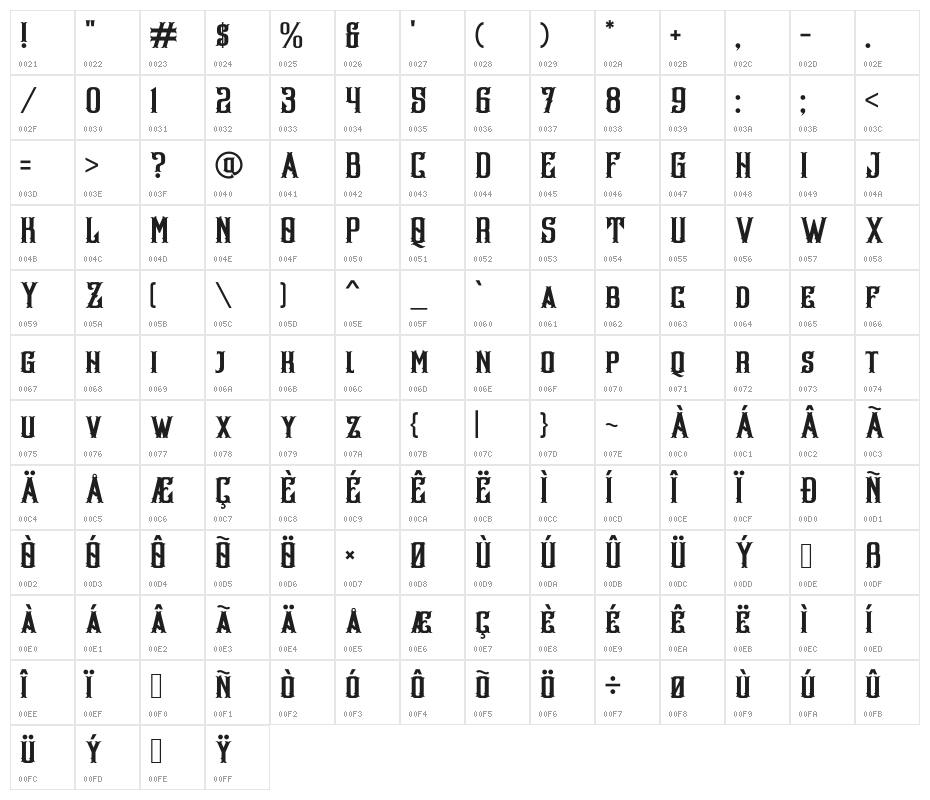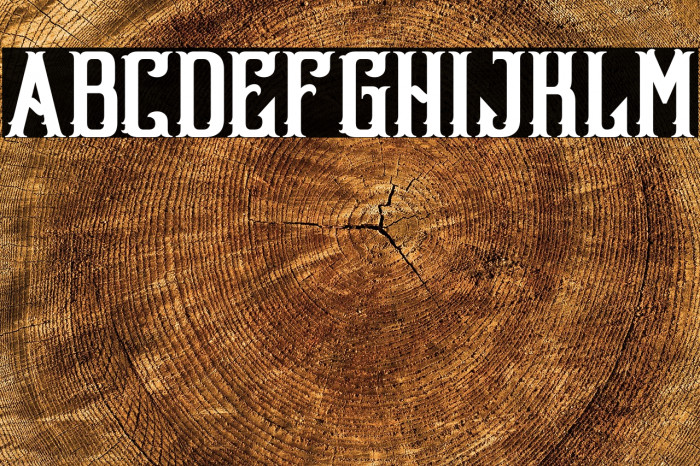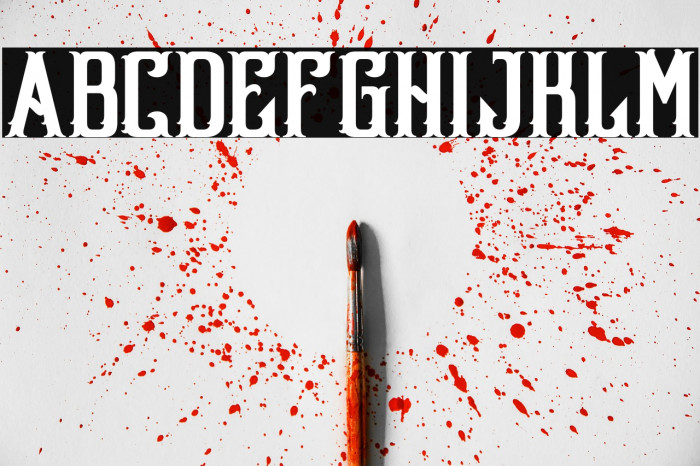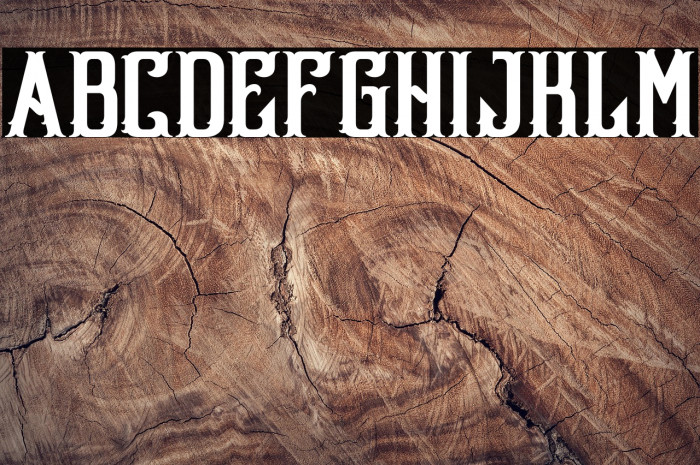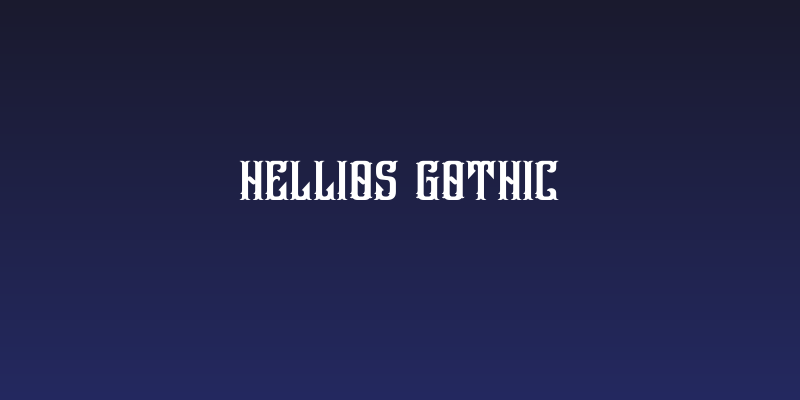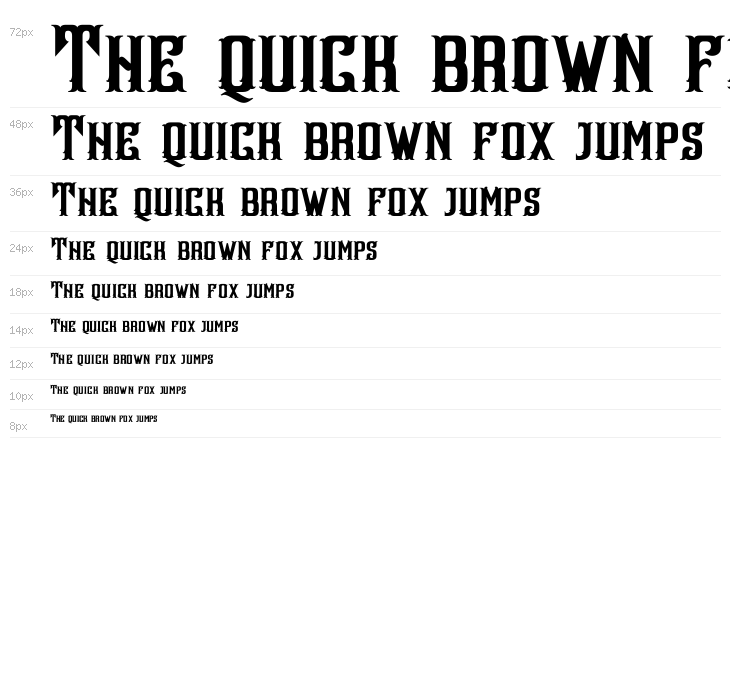
Hellios Gothic Font
Hellios Gothic Description
This font features a bold, dramatic style with a strong Gothic influence. The characters are designed with sharp, angular edges and intricate detailing that gives them a distinct, ornamental appearance. The uppercase letters are particularly striking, with elongated vertical lines and pointed serifs that enhance their imposing presence. The lowercase letters maintain the same stylistic elements, ensuring consistency across the typeface. Numbers and special characters are equally elaborate, making them suitable for decorative purposes. The overall design is reminiscent of medieval script, yet it maintains a modern edge that makes it versatile for various design applications.
| Overall Style | Gothic, Decorative |
| Proposed Projects | Ideal for use in branding, posters, album covers, and any project requiring a dramatic, eye-catching typeface. |